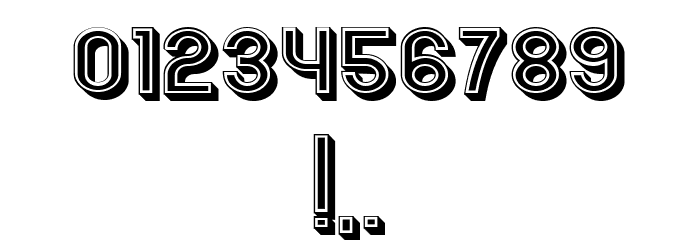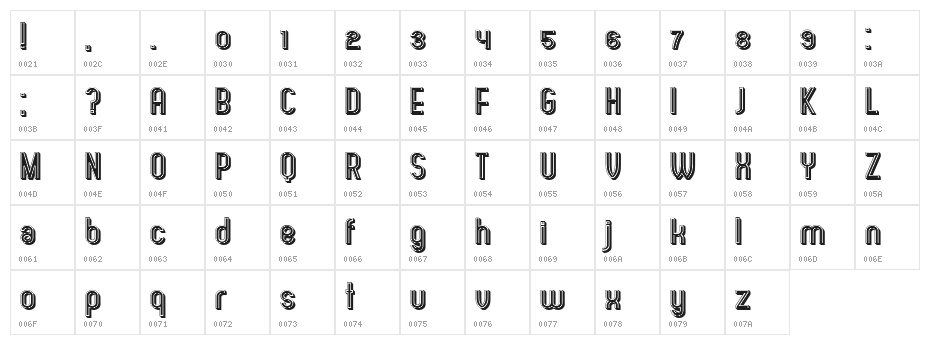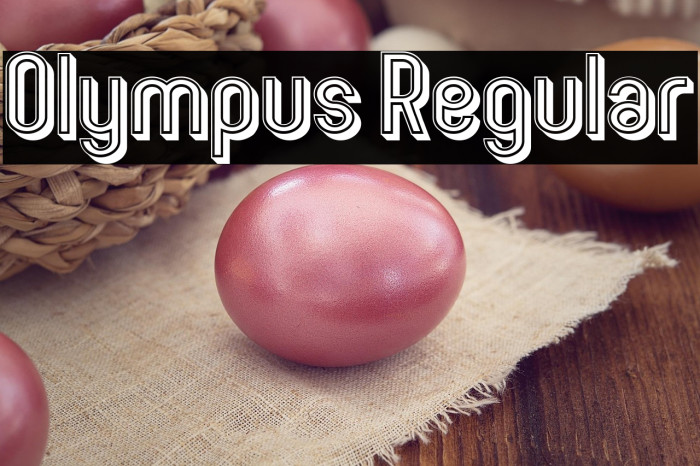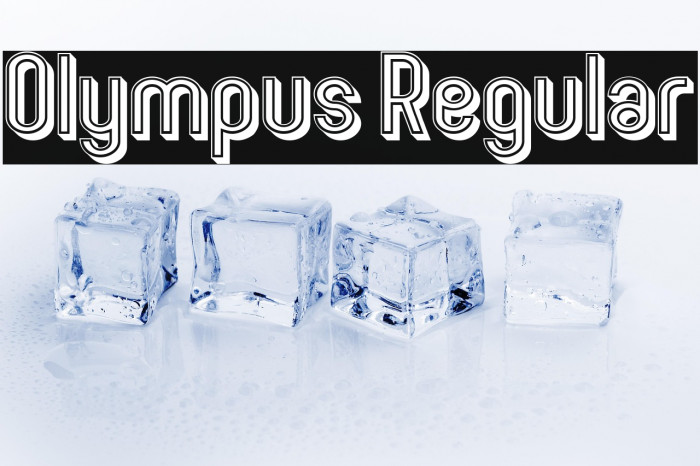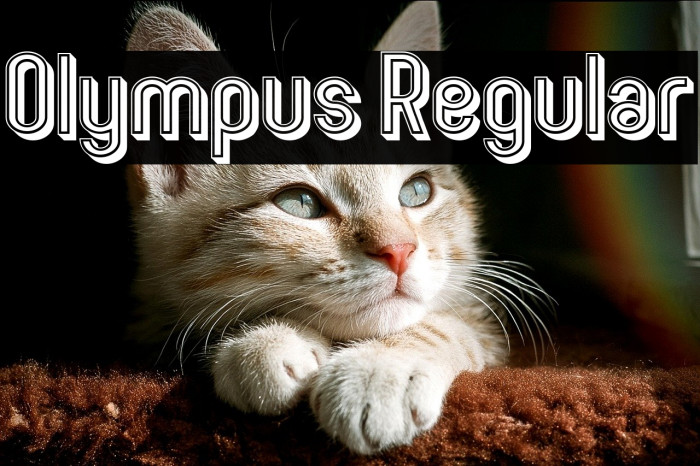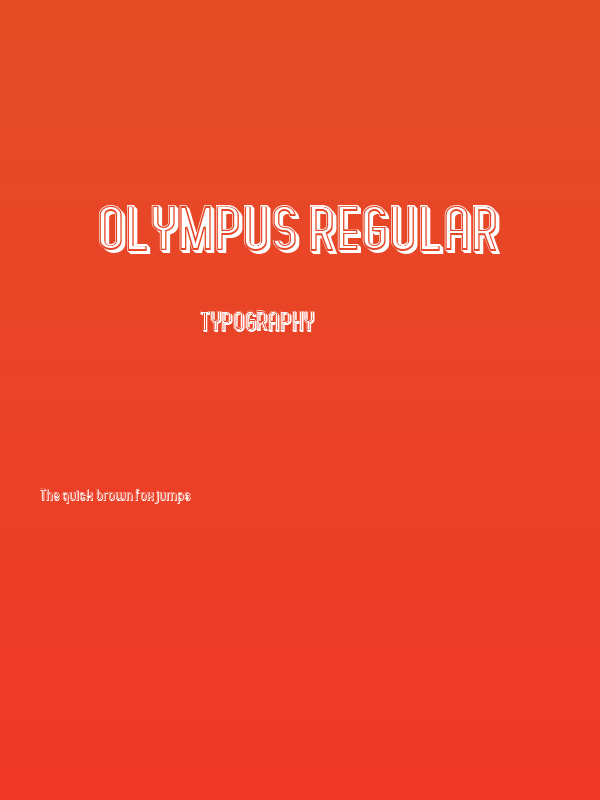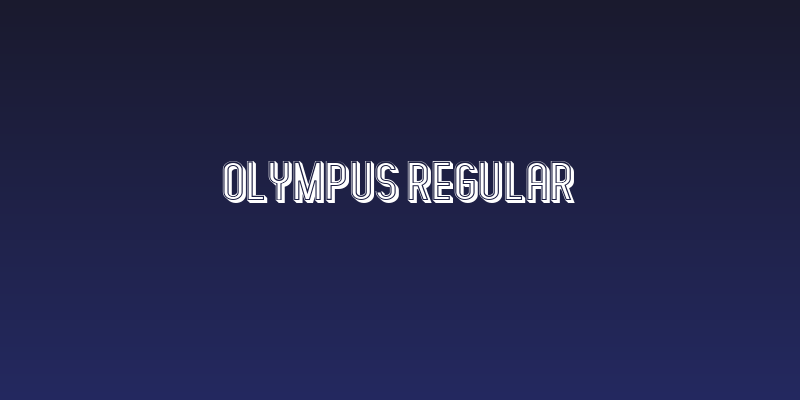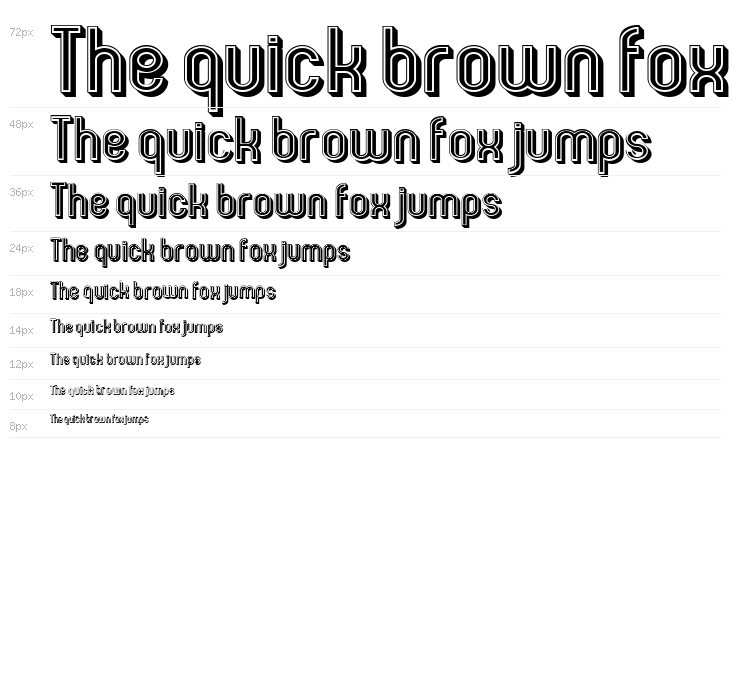
Olympus Regular Font
Olympus Regular Description
This font features a bold, decorative style with a distinct three-dimensional effect created by its layered outline. The uppercase and lowercase letters maintain a consistent geometric structure, with clean lines and sharp angles that give it a modern and dynamic appearance. The numerals and special characters are designed to match the boldness and style of the alphabet, ensuring a cohesive look across all characters. The font's unique design makes it stand out, making it suitable for attention-grabbing headlines or creative projects that require a strong visual impact. Its layered outline adds depth and dimension, making it ideal for use in digital and print media where a striking and memorable impression is desired.
Overall StyleModern, Decorative
Proposed ProjectsIdeal for posters, logos, headlines, and branding materials that require a bold and eye-catching design.